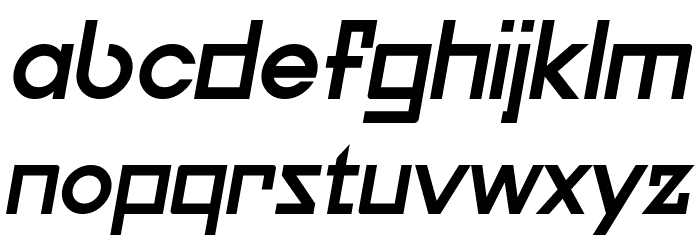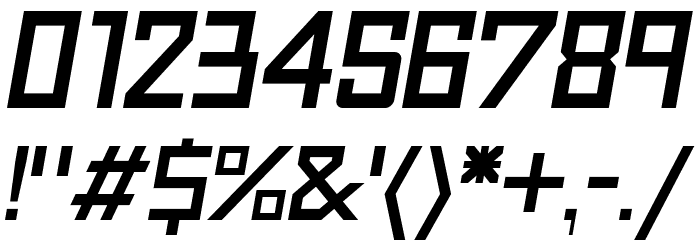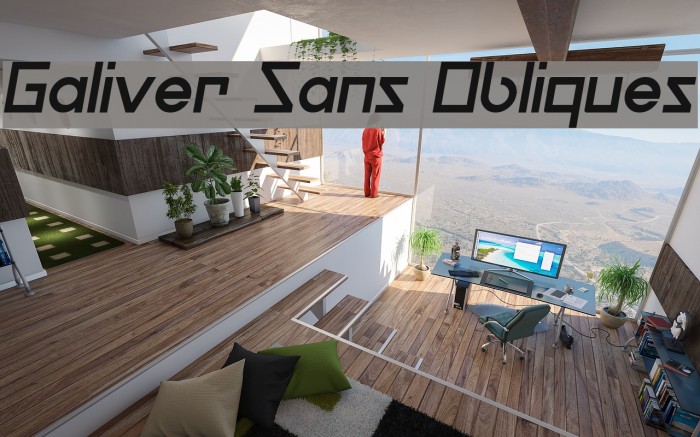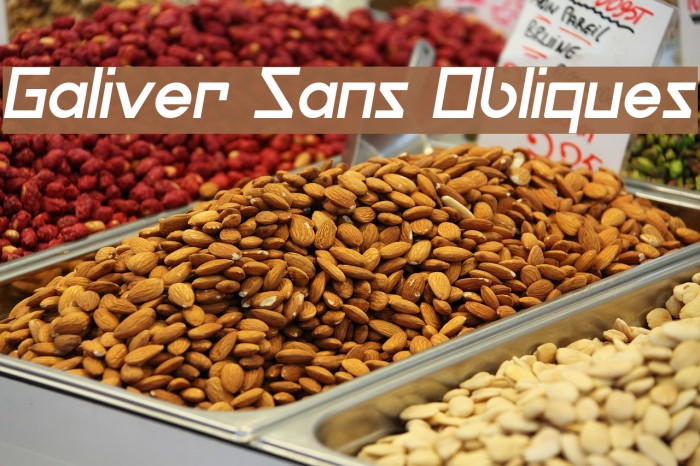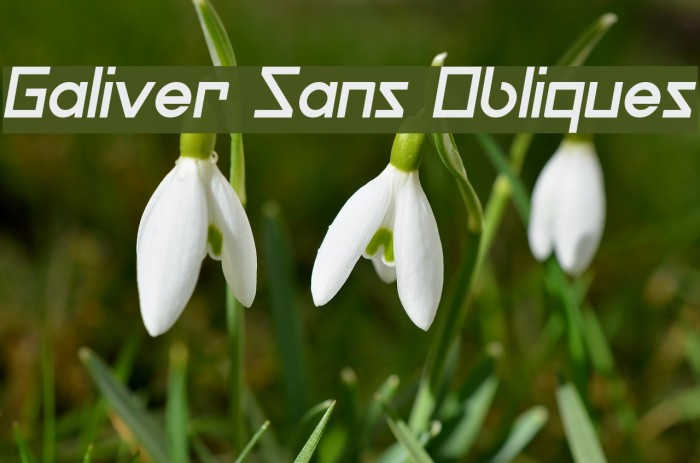
Galiver Sans Obliques Font
This font features a modern, angular design with a distinct slant, giving it a dynamic and forward-moving appearance. The characters are bold and geometric, with sharp edges and a consistent stroke width throughout. The uppercase letters are particularly striking, with a futuristic feel, while the lowercase letters maintain the same angular style, ensuring uniformity across the typeface. The numerals are equally bold and angular, matching the overall aesthetic. Special characters are designed with the same attention to detail, ensuring they integrate seamlessly with the rest of the font. This typeface is ideal for projects that require a contemporary and assertive look.
A bold, angular, and slanted font with a modern, futuristic style.
- Proposed Projects: Ideal for branding, advertising, technology-related projects, and modern web design.
- Use Case: Headlines, Logos, Branding